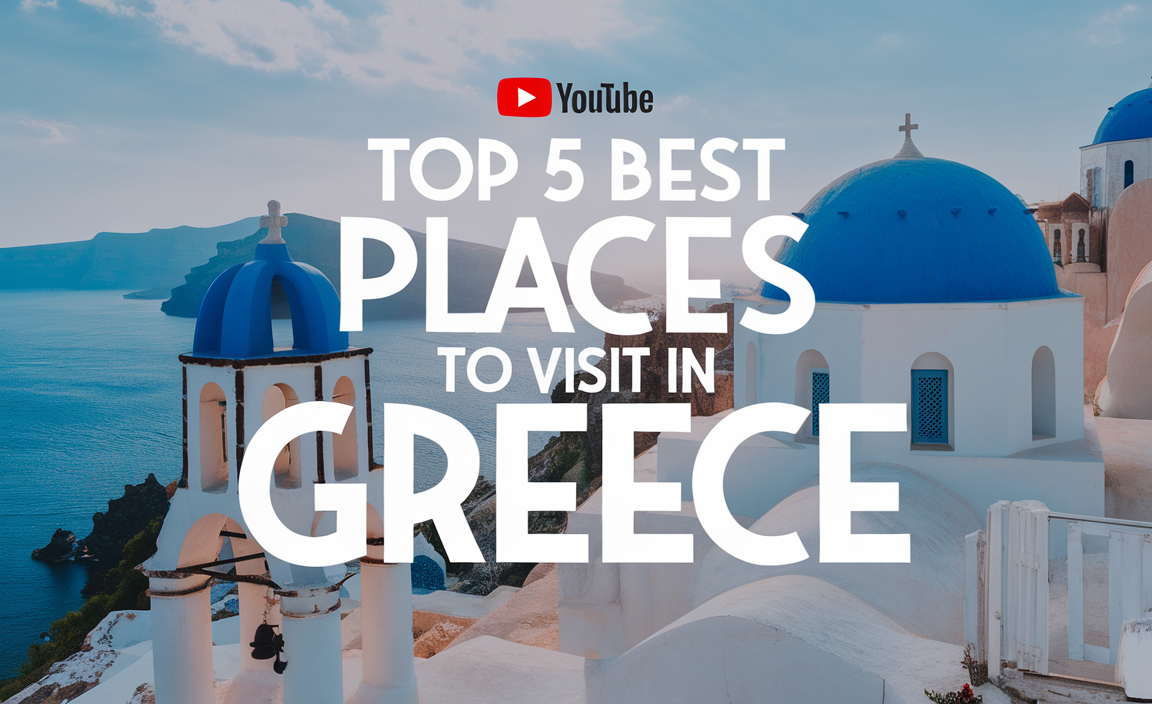
As a YouTuber, whether you’re creating video content for a gaming channel, lifestyle vlog, or educational series, choosing the right font is crucial for standing out. Fonts not only affect the readability of your video titles, subtitles, and thumbnails, but they also help communicate your brand identity.
Whether you’re designing your YouTube banner, channel art, or thumbnail, selecting the best font style can greatly impact viewer engagement and overall aesthetics. In this article, we’ll explore the most popular fonts used by YouTubers, how to choose the right font for your channel, and why certain fonts work better for specific content types.
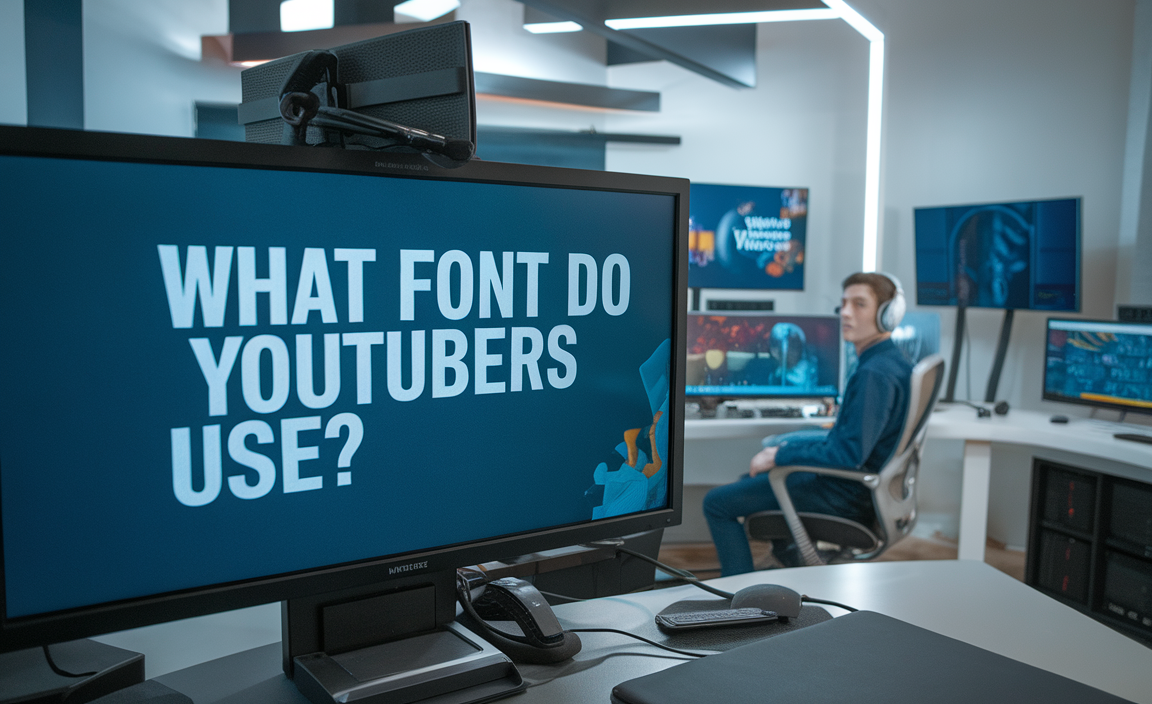
What Font Is Used in YouTube Thumbnails and Video Titles?
In YouTube thumbnails and video titles, the font choice plays a vital role in grabbing the attention of viewers. It is essential to pick a bold font that stands out even when reduced in size. A YouTube thumbnail is a crucial design element in attracting clicks, so choosing a font that is both readable and visually appealing is key.
Font Name: Impact
Impact Font is one of the most commonly used fonts in YouTube thumbnails. Known for its heavy, bold design, it ensures your text is visible and eye-catching. This font works well for all types of YouTube videos, from gaming content to tutorials and entertainment. It’s particularly effective for making video titles stand out.
Font Name: Montserrat Extra Bold
Another widely-used font is Montserrat Extra Bold, a sans serif font that has clean lines and a modern look. It’s a great font for video content because of its versatility and readability. Whether you’re designing a YouTube channel banner or video text, this font will ensure clarity.
Font Styles for YouTube Channel Logos and Art
The YouTube logo itself uses a custom font that embodies the brand’s identity. When it comes to creating a YouTube channel logo, using a font that aligns with your content style is important. If your channel is about gaming, for example, you might want a more dynamic, fun YouTube font, like DK Mandarin Whisper, which features playful brush-like strokes.
If you are looking for a more professional and clean style, a serif font like Playfair Display can help convey sophistication and elegance. This font is ideal for YouTubers who create content related to lifestyle, fashion, or beauty, offering a mix of modern and classic aesthetics.
For a minimalist look, Open Sans is a popular sans serif font, which provides a clean, readable, and modern style for channel art. It’s widely used across social media platforms due to its clarity and adaptability.
YouTube Video Subtitles and Text
For YouTube video content, fonts used in subtitles or captions need to be easily readable. YouTube Sans, a custom sans serif font, is specifically for the platform’s interface, providing clarity in both video content and subtitles. If you want your subtitles to stand out without distracting from the video, this is a solid choice.
However, if you want to bring more character and style to your subtitles or video text, Brush fonts like DK Mandarin Whisper can add a personalized and unique touch to your content. Brush fonts are great for casual, fun, or artistic videos but may not work as well for instructional or serious content.
Best Fonts for YouTube Shorts
For YouTube Shorts, the font choice is crucial due to the limited screen space and the fast-paced nature of the content. You need something that grabs attention immediately but is still legible when viewed on smaller screens. Extra bold fonts like Montserrat Extra Bold or Impact font are great for this purpose, ensuring that your text pops against your videos.
Font Selection for YouTube Video Content and Viewer Engagement
The right font choice can significantly affect viewer engagement. A well-chosen font creates a visual harmony that allows your viewers to easily consume your content. The font style can help communicate the tone of your video, from fun and quirky to professional and educational.
For video content aimed at a younger or more energetic audience, fonts with more personality, such as Brush fonts or Playfair Display, are great for expressing creativity. These fonts are engaging and work well for YouTube content creators who want to establish a fun and approachable persona.
For more serious content, such as tech tutorials or interviews, a simpler, cleaner font like Open Sans or YouTube Sans would be a better. These fonts provide clarity and are easy to read across various devices, making them perfect for instructional or informational content.
Choosing Fonts for Your YouTube Banner and Channel Art
Your YouTube banner is one of the first things viewers see when they visit your channel. It’s essential that the font used on your banner complements your brand and grabs attention. Popular choices for YouTube channel banners include Montserrat Extra Bold, Impact, and other bold, sans serif fonts. These fonts help make your text stand out in the busy world of YouTube.
3. What’s the best font for YouTube video subtitles?
YouTube Sans is the best font for video subtitles as it’s designed for readability on YouTube. Open Sans is another good option for clarity.
4. Should I use serif or sans serif fonts for YouTube video titles?
For YouTube video titles, sans serif fonts like Montserrat Extra Bold or Impact are generally preferred because they are clean and bold, making them easy to read.
5. What font is used in the YouTube logo?
The YouTube logo uses a custom font called YouTube Sans.